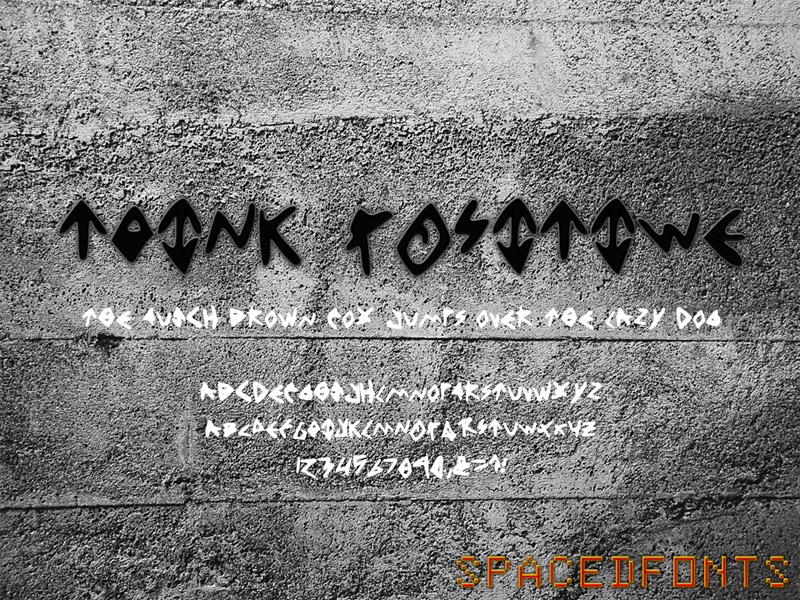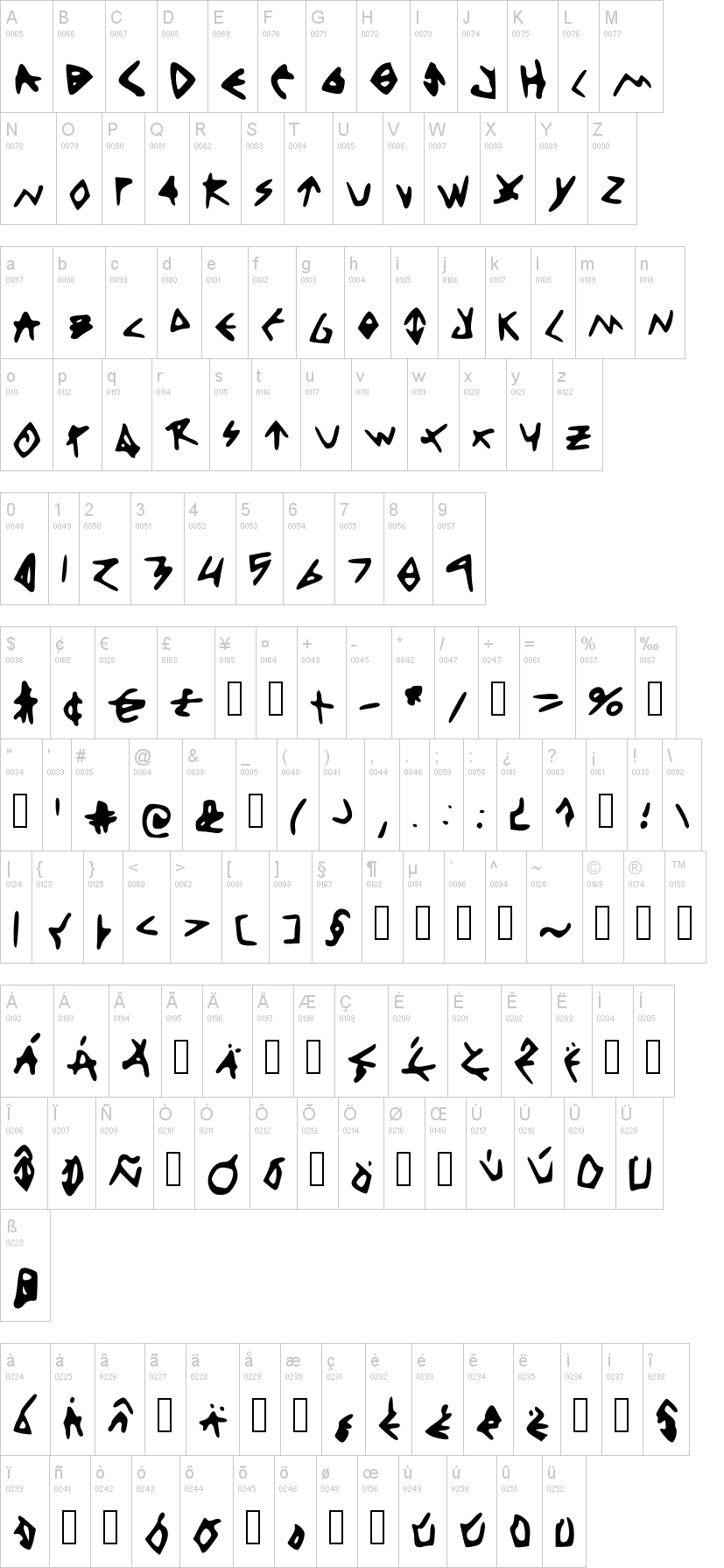
Note of the authorThink Positive is an handwritten decorative font, with hard rock heritage, this font is now available for personal/commercial use :)